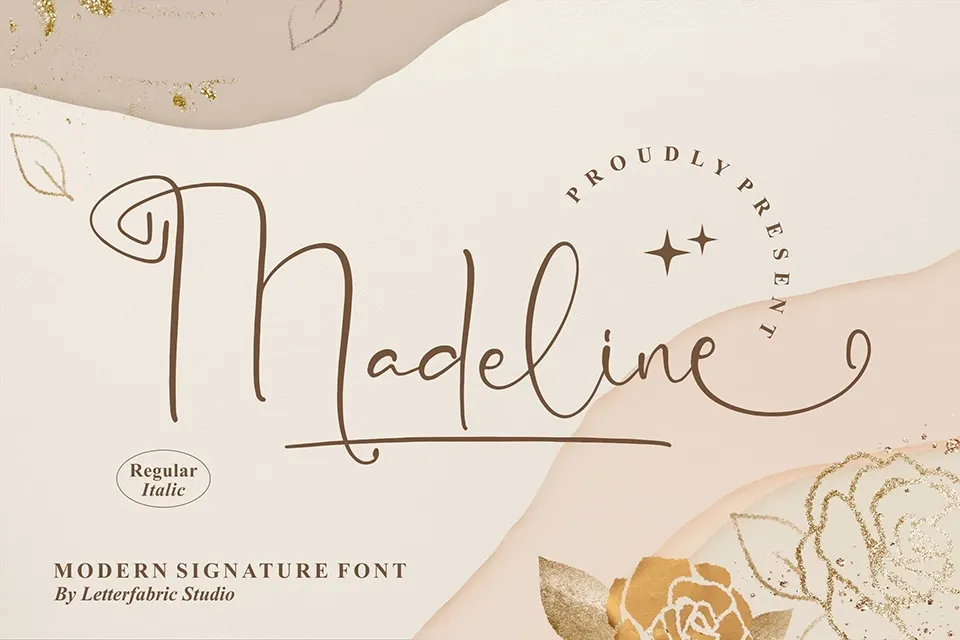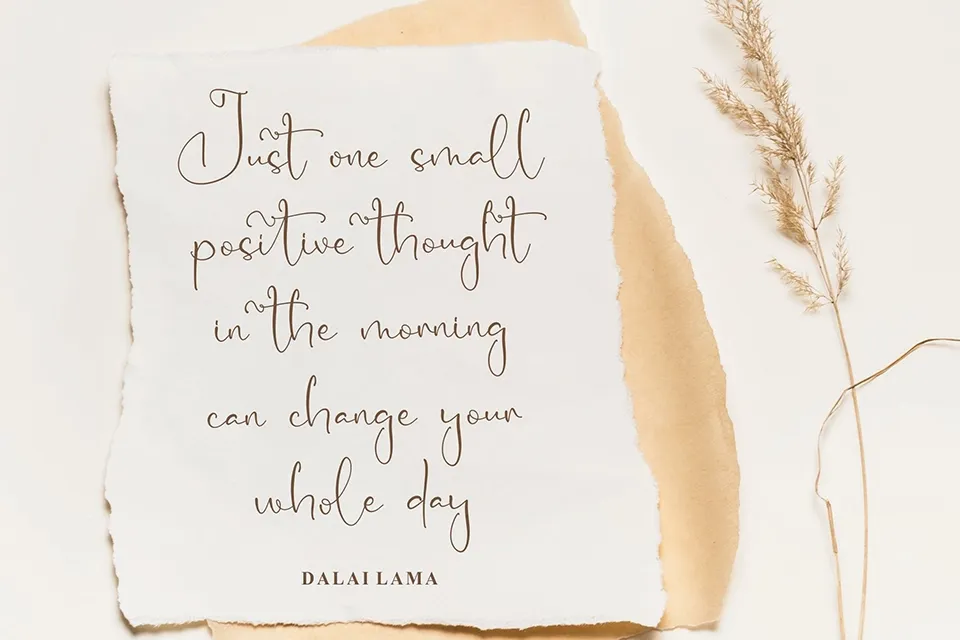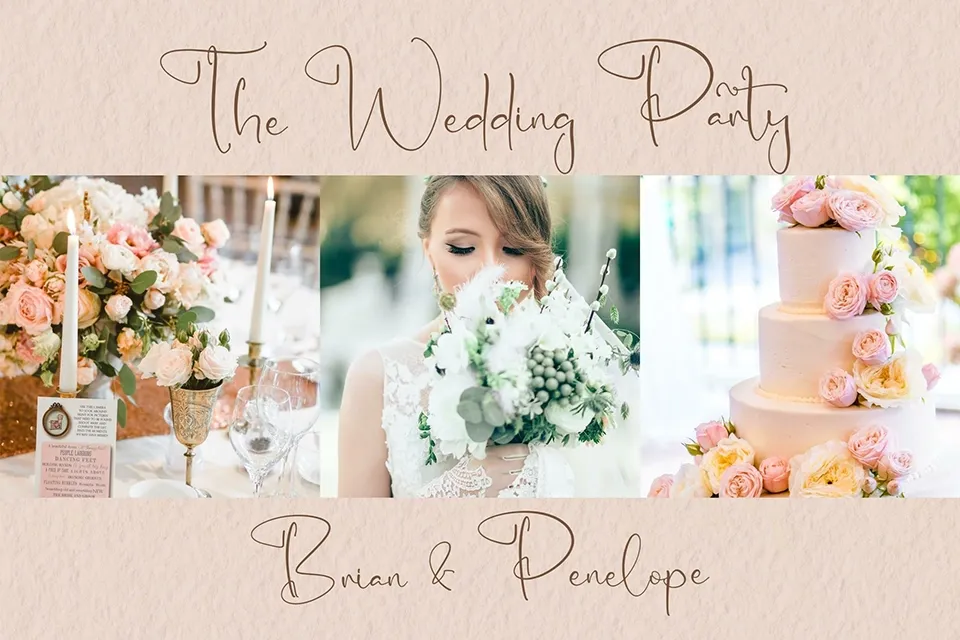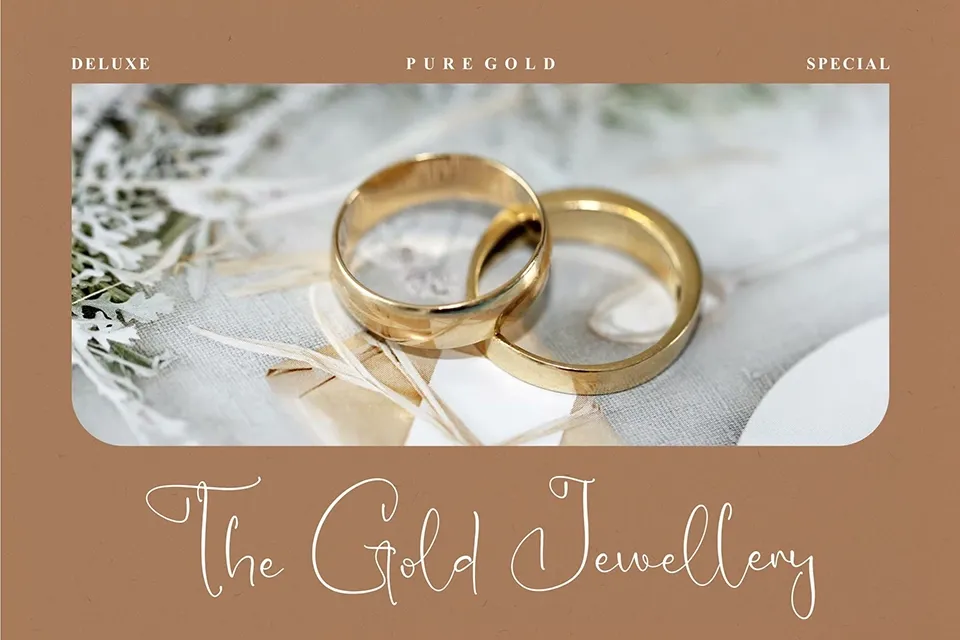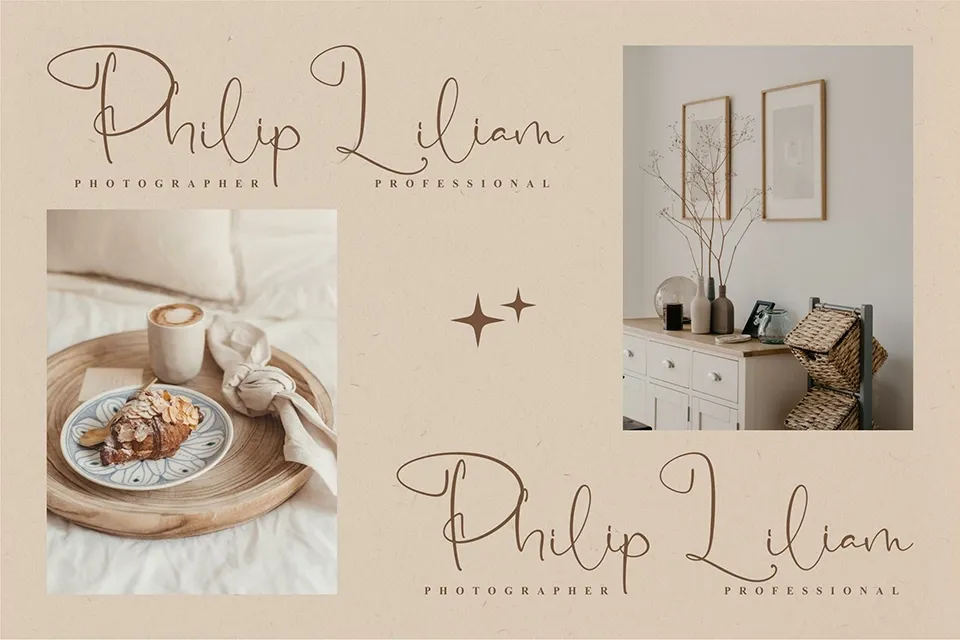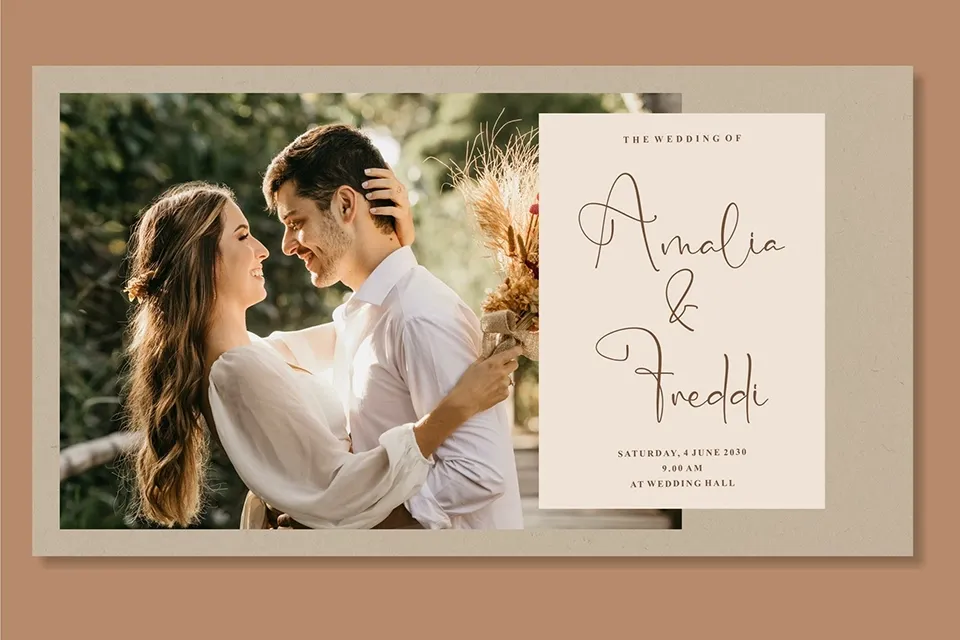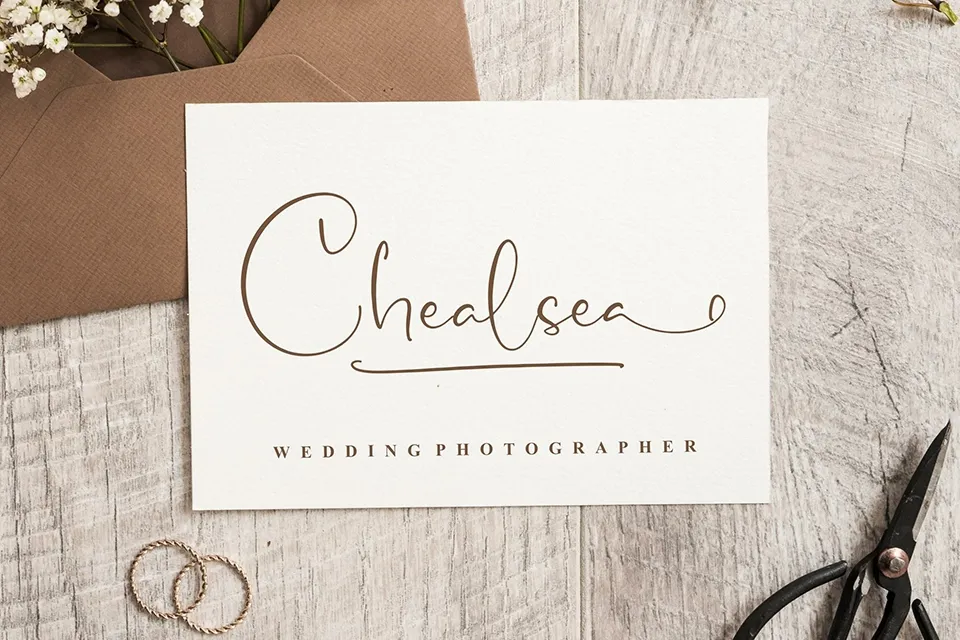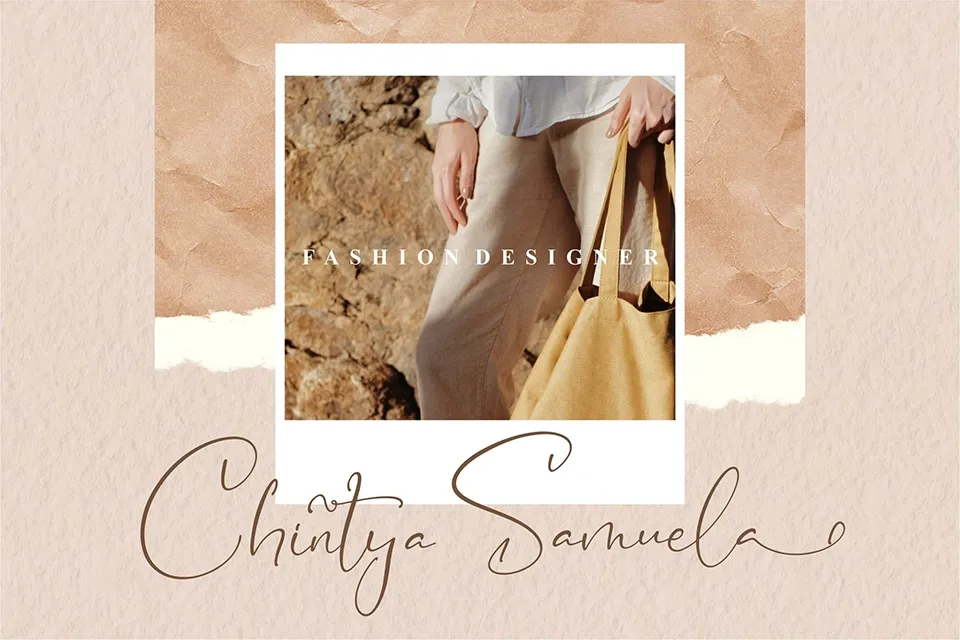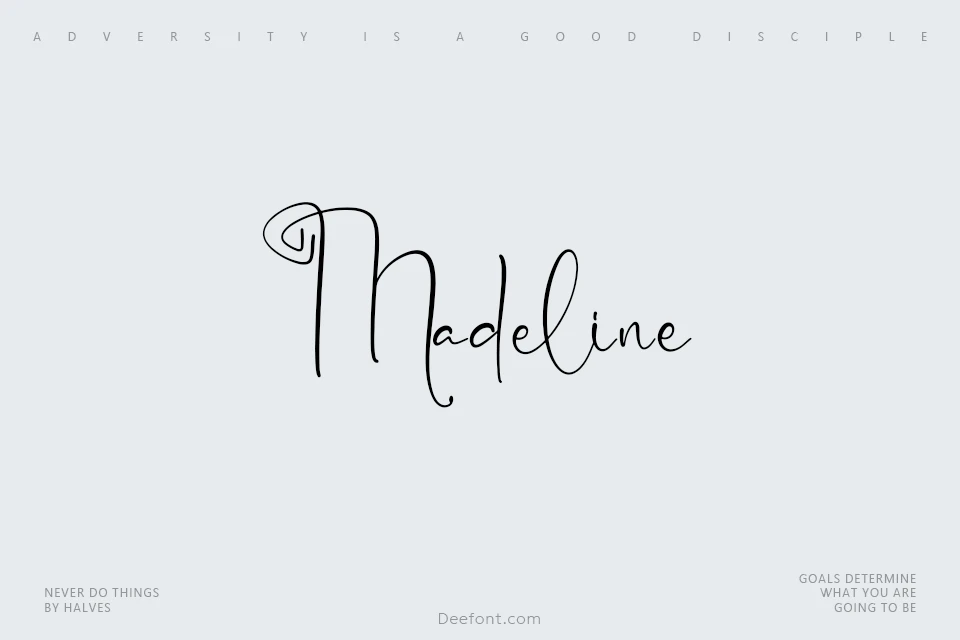
Madeline Font
Madeline Font is a modern and elegant signature typeface designed to add sophistication and charm to your creative projects. With its graceful, flowing strokes and delicate curves, this font exudes a refined and stylish aesthetic, making it perfect for branding, wedding invitations, logos, packaging, and social media designs. Madeline Font comes in Regular and Italic styles, offering versatility for various applications. Its handwritten feel conveys warmth and personality while maintaining professionalism. Ideal for both bold statements and subtle accents, Madeline Font brings timeless beauty to your text, ensuring your designs stand out with elegance and artistic flair.